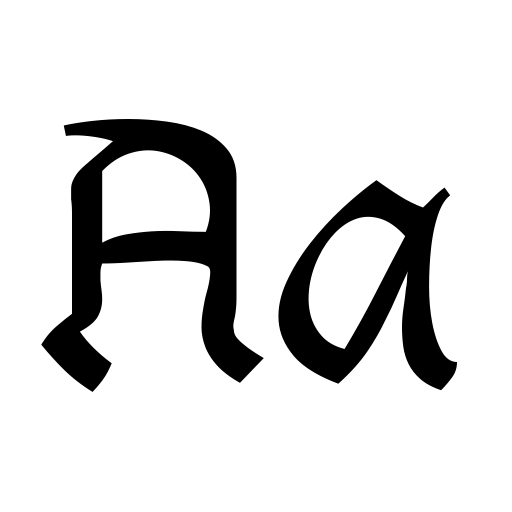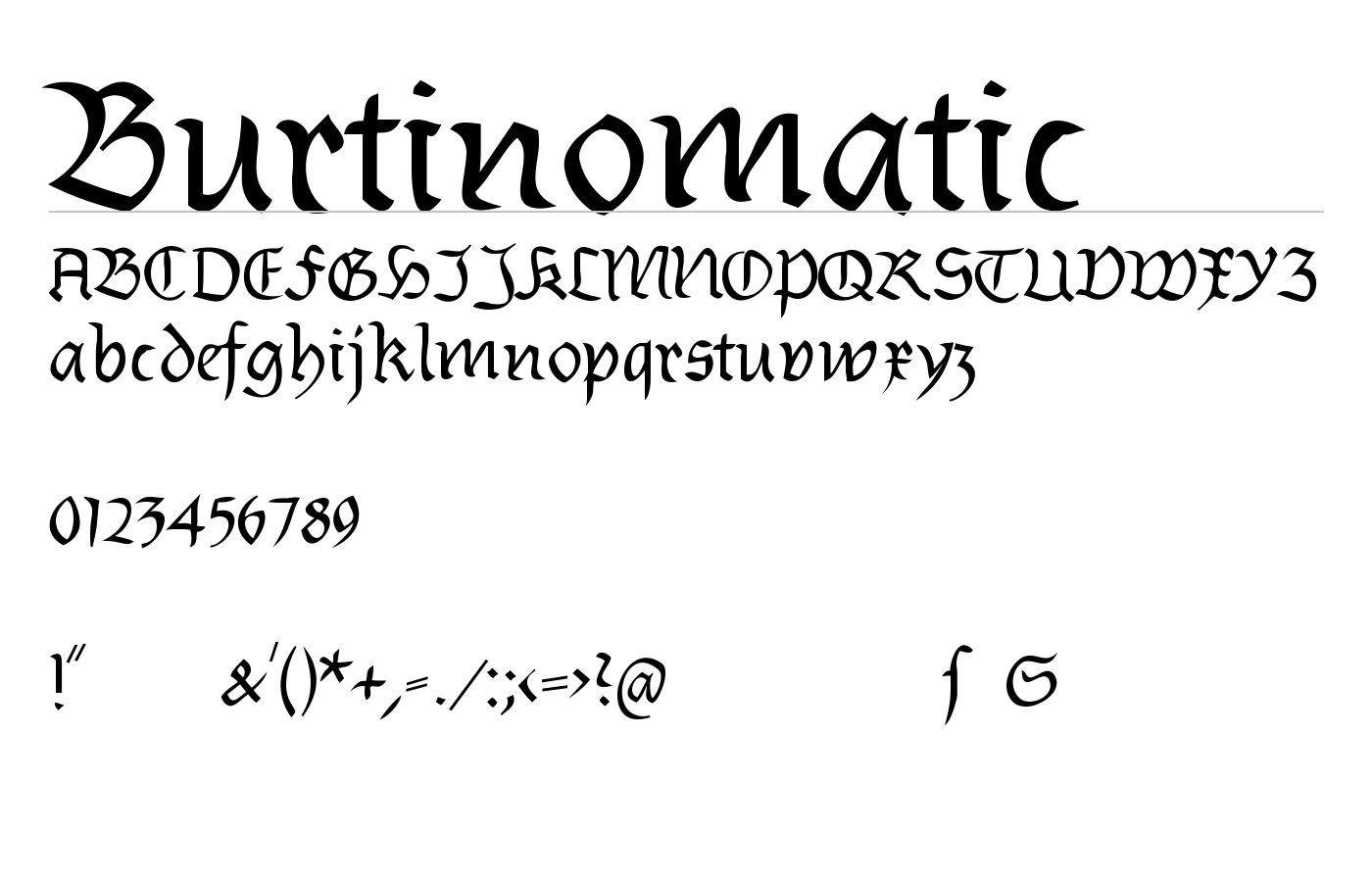
Burtinomatic is a decorative blackletter-style font with a bold weight and sharp, angular strokes that evoke a historic, Gothic feel. Its unique letterforms feature high contrast between thick and thin elements, with ornate details and a slightly condensed width, making it ideal for dramatic headlines, branding with a medieval or vintage vibe, and artistic projects seeking a strong, distinctive character. This font works best where a bold, classic statement is needed rather than body text, capturing attention with its elegant yet intense personality.
Burtinomatic Font
About Burtinomatic Font